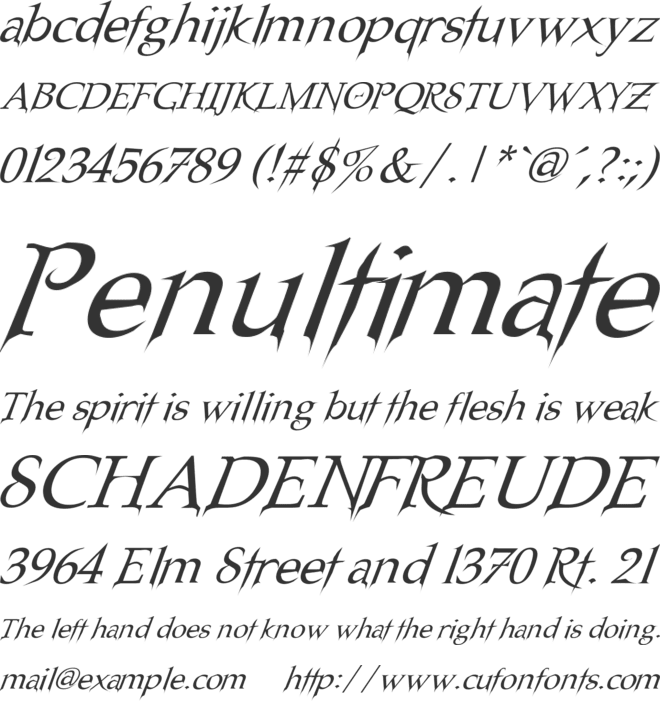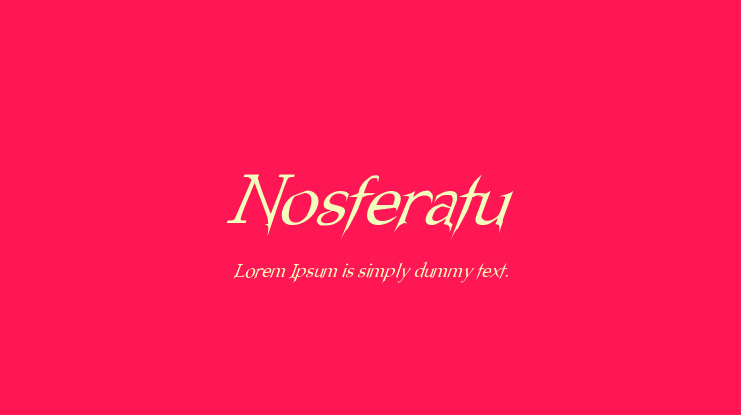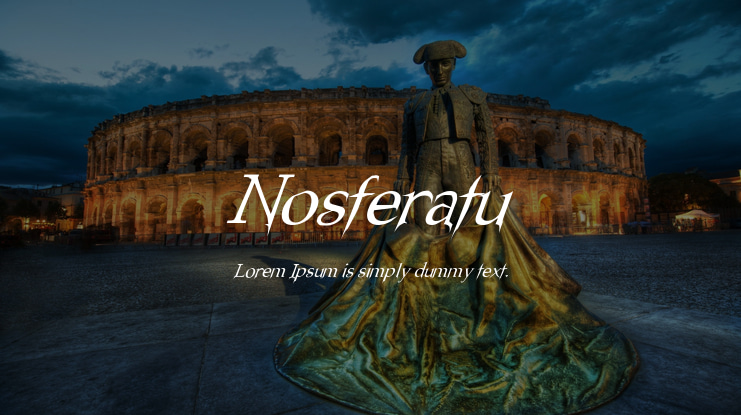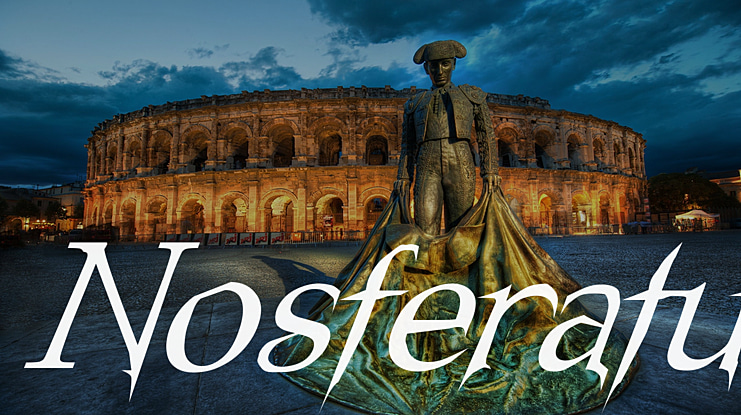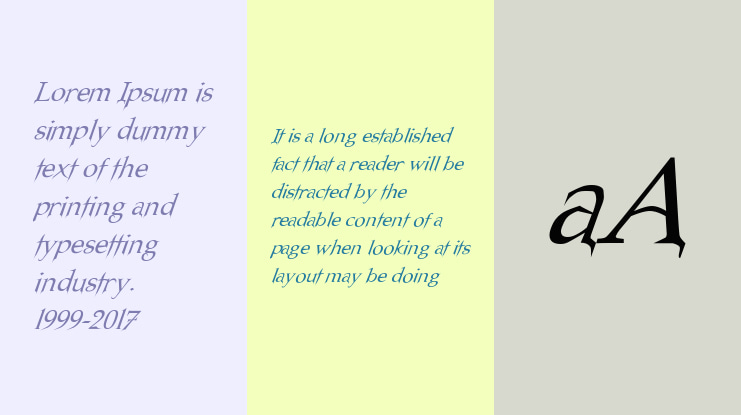
Nosferatu Font Family
This font was spawned by a long weekend, too many Bauhaus albums, an issue of Permission magazine, and an NNTP connection to alt.gothic. It was fun to do. I hope it conveys that brooding sort of 1920's silent horror film feel.